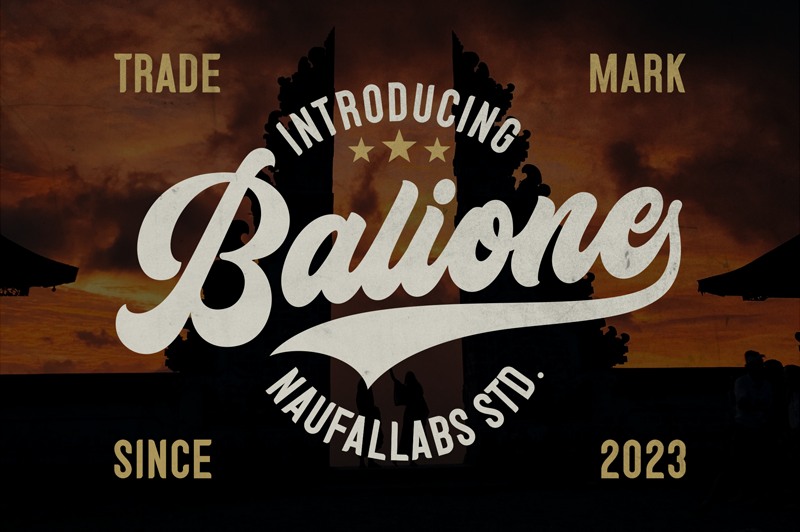
Preview and download Balione Font. Created by Naufal Labs in Script Old School styles with Free for personal use license.
Balidone is a retro font that will take you back in time with its unique and stylish design. With its vintage vibe and classic charm, Balidone is the perfect choice for anyone who wants to add a touch of nostalgia to their designs. This demo font is for PERSONAL USE ONLY! But any donation are very appreciated. Paypal account for donation : https://paypal.me/naufallabs Link to purchase full version and commercial license : https://crmrkt.com/7Nq0qx https://fontbundles.net/naufallabs/2512450-balidone-retro-font For Extended License or Corporate License Please Reach Us on email : naufallabstudio@gmail.com if you need something! Happy Designing! Thank you. Regards, Naufal Labs |